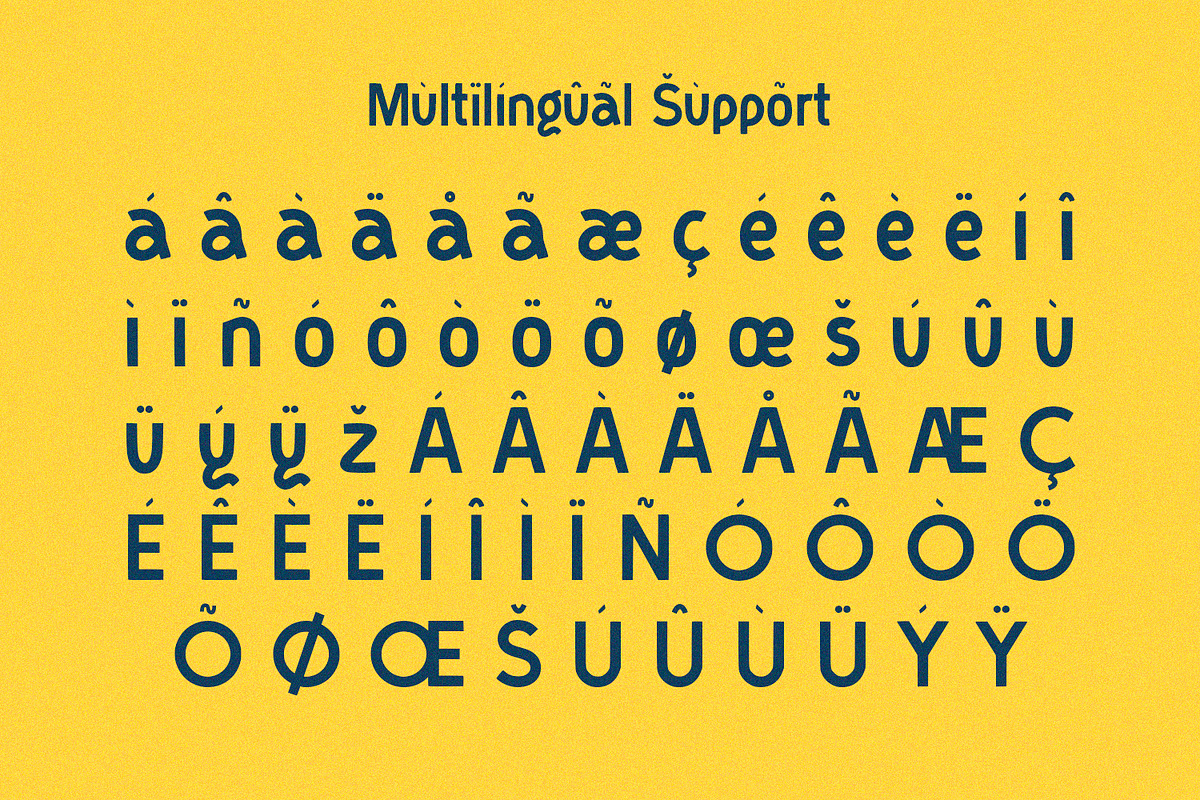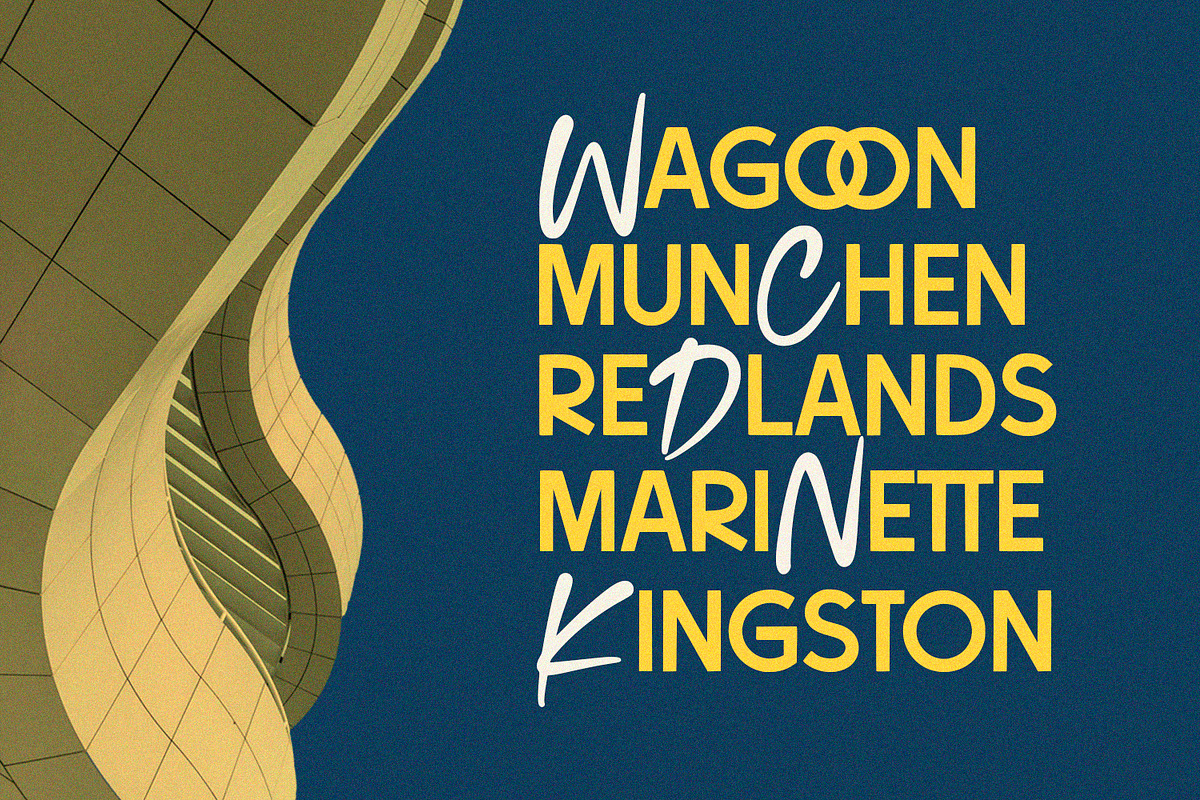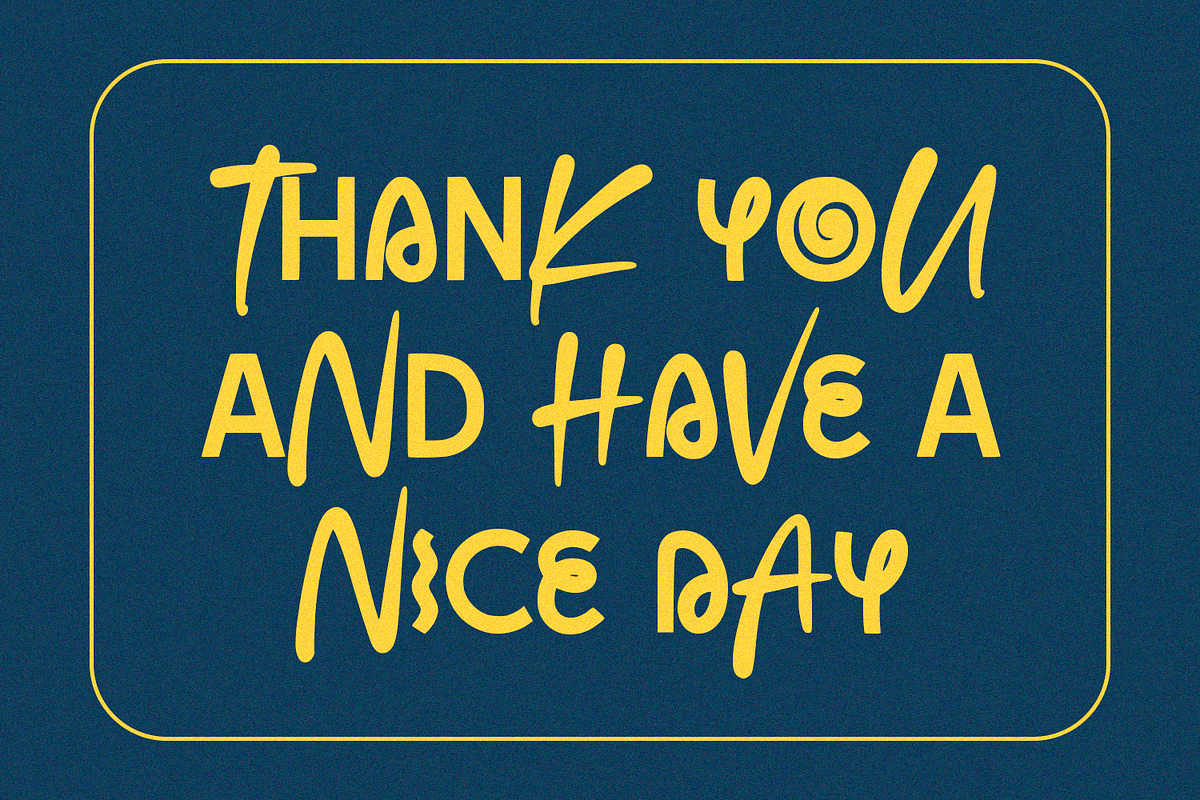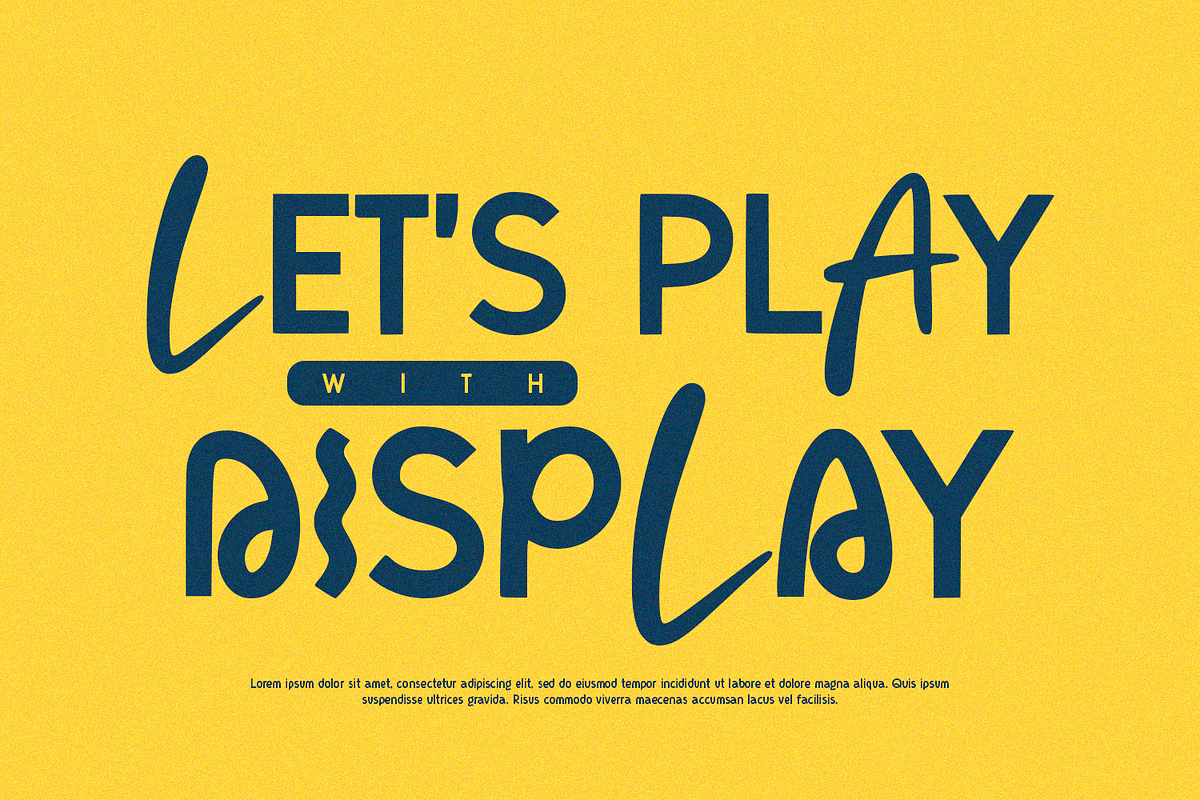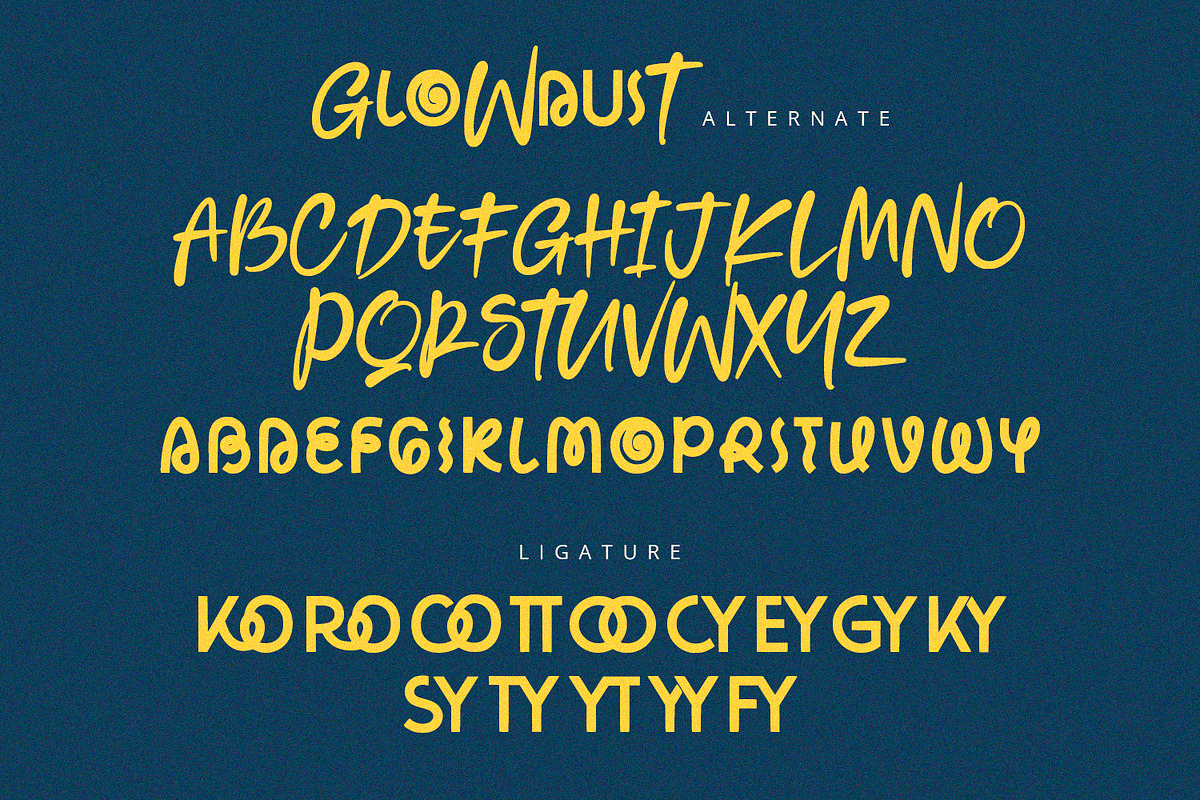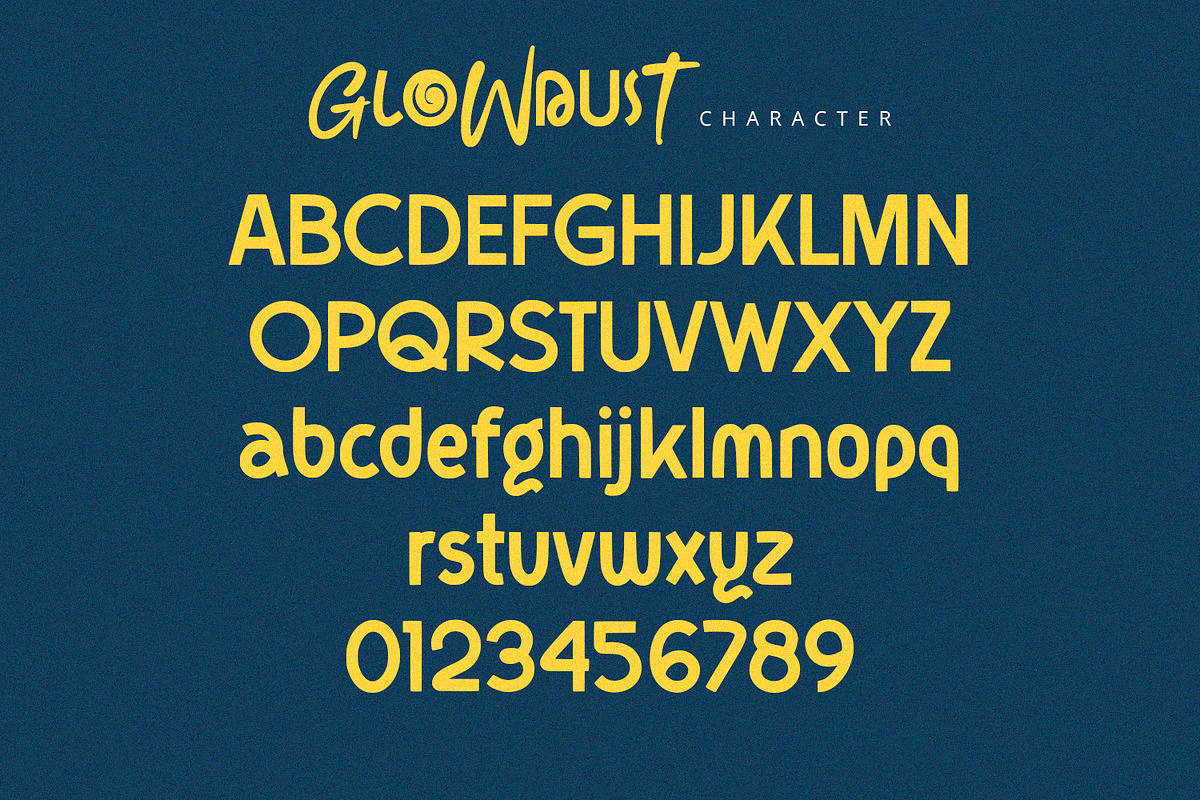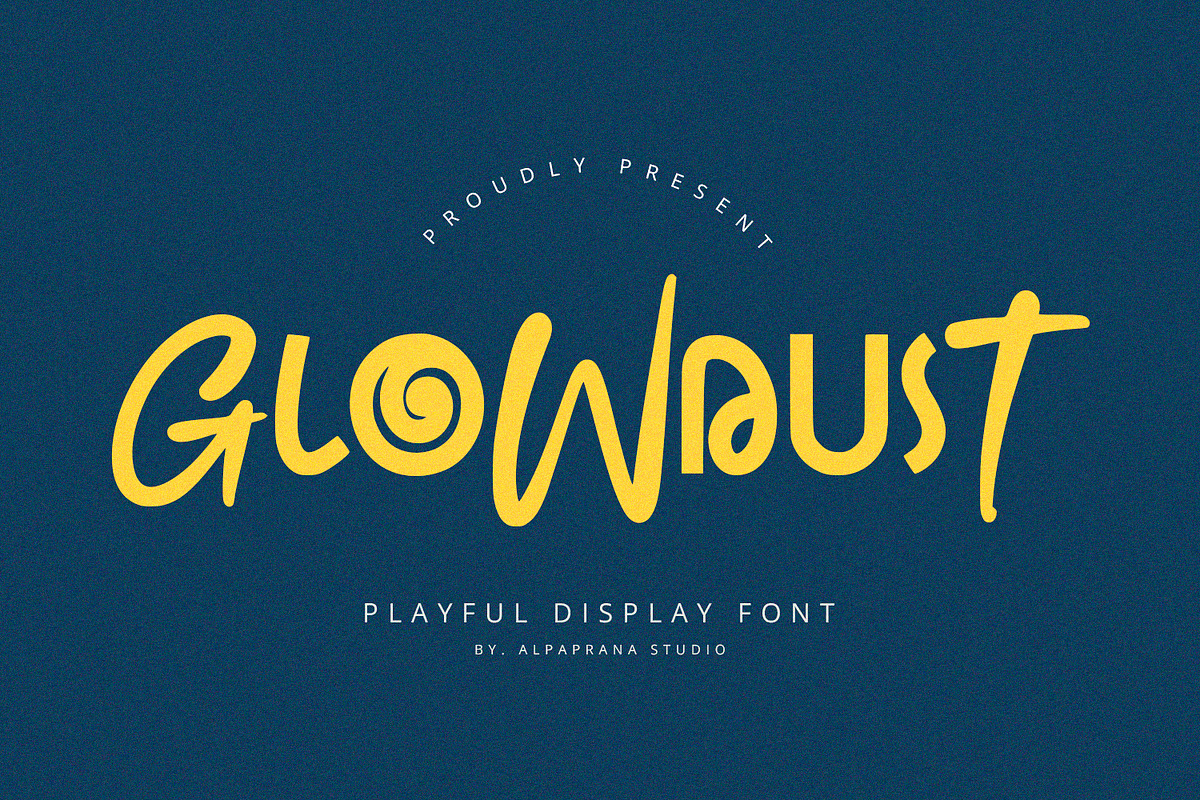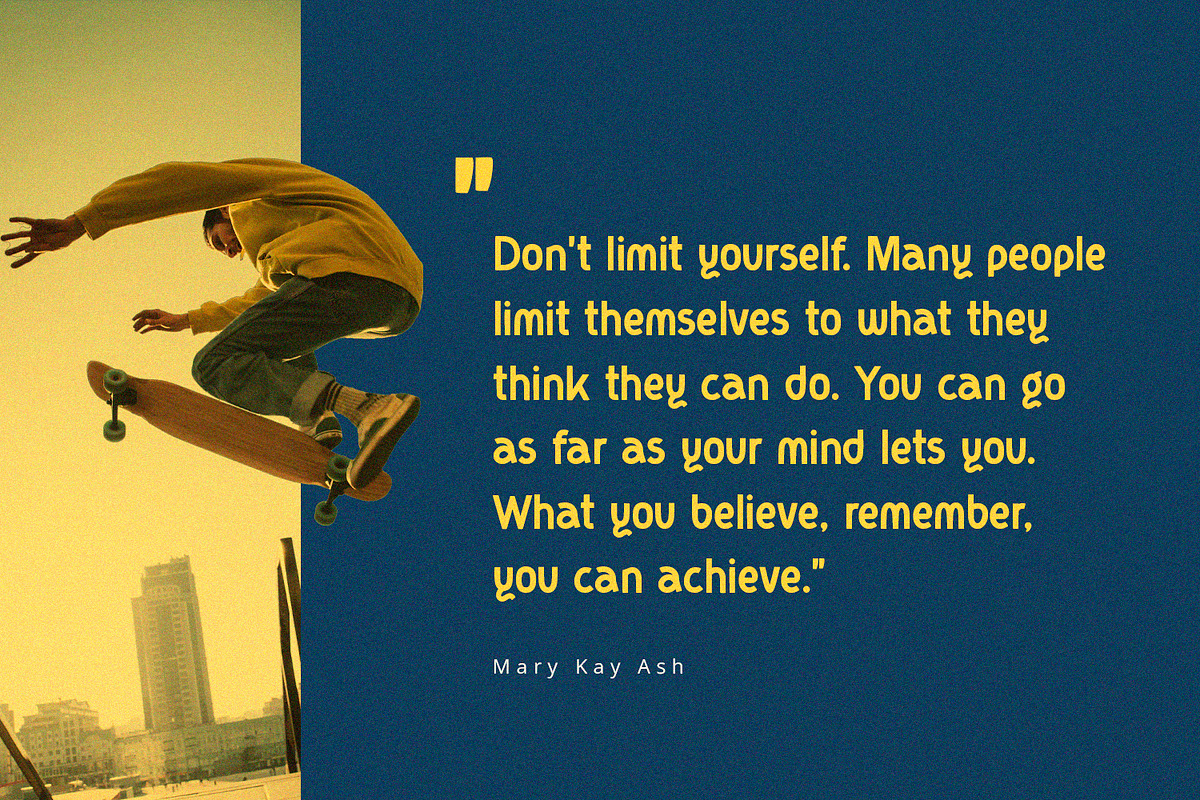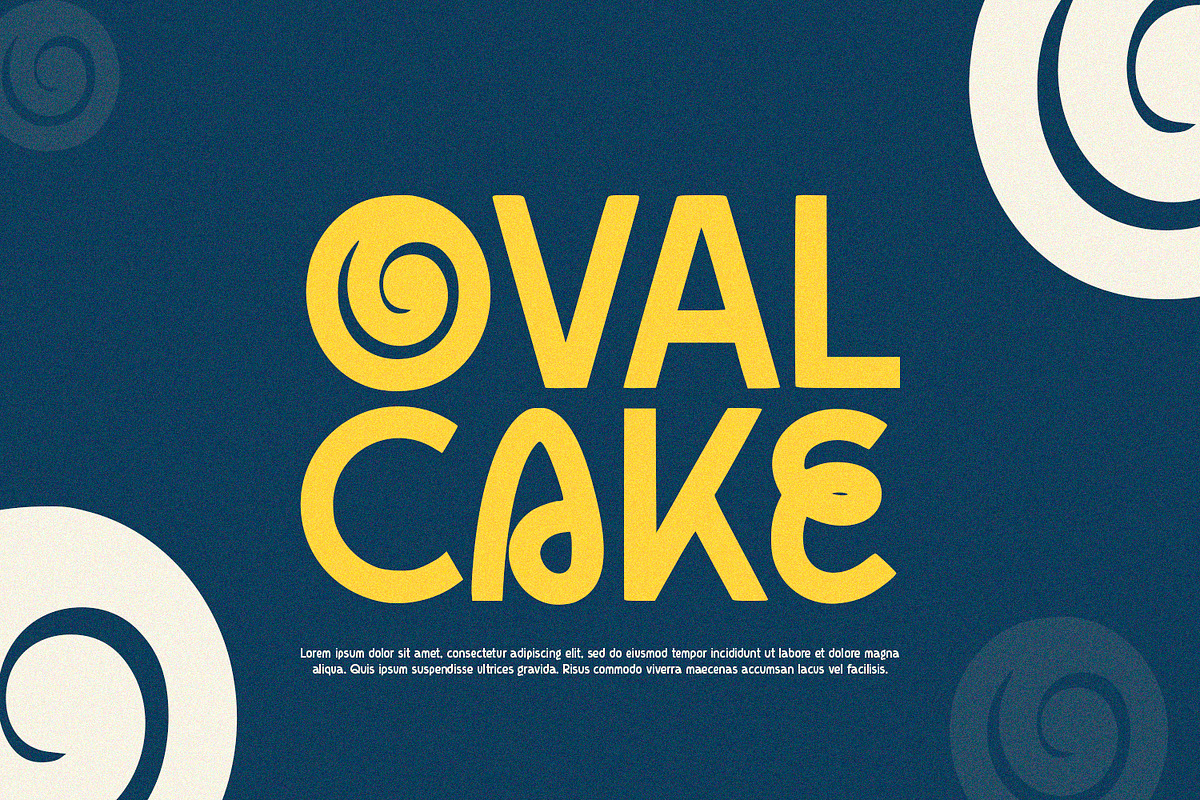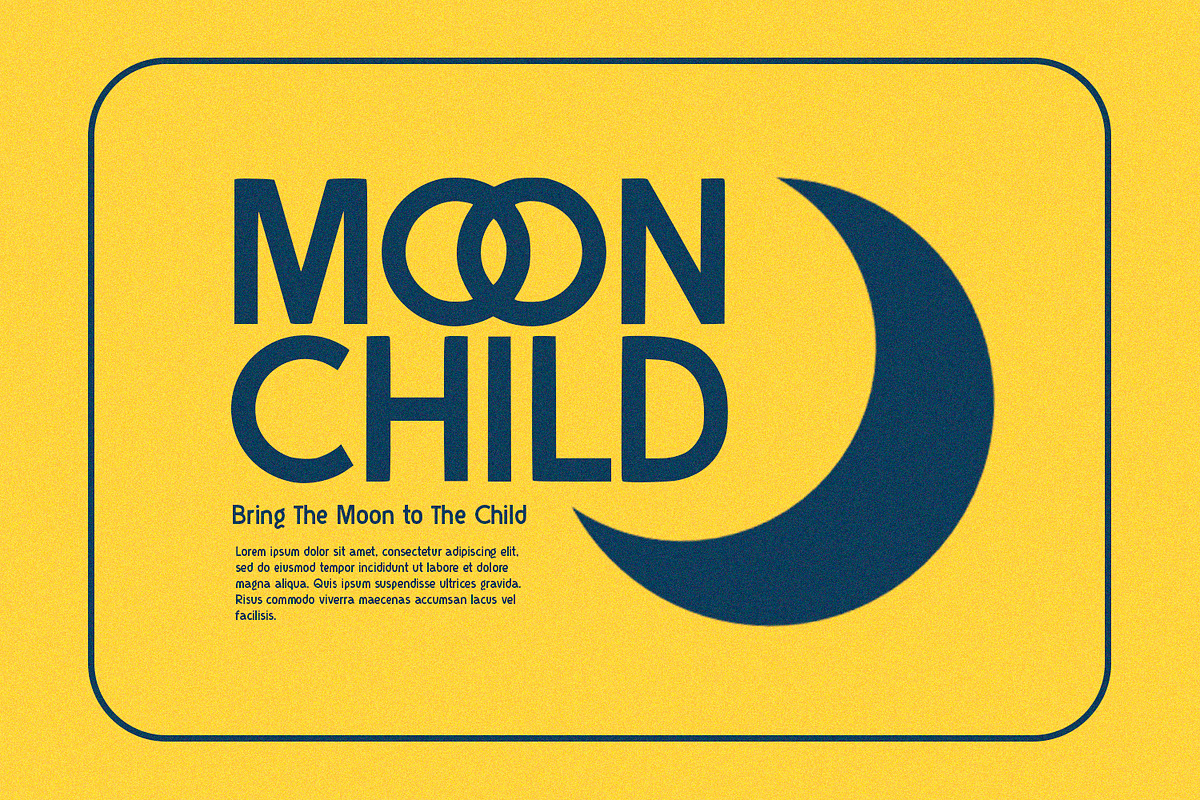
Glowdust - Display Sans
Glowdust is display sans serif font with modern and playful feels. It will be perfectly used for Branding, Logo Design, Lettering, Logotype, Clothing, Poster, magazine, packaging, posters, shopping bags, t-shirts, book covers, photography, special events and other design project.